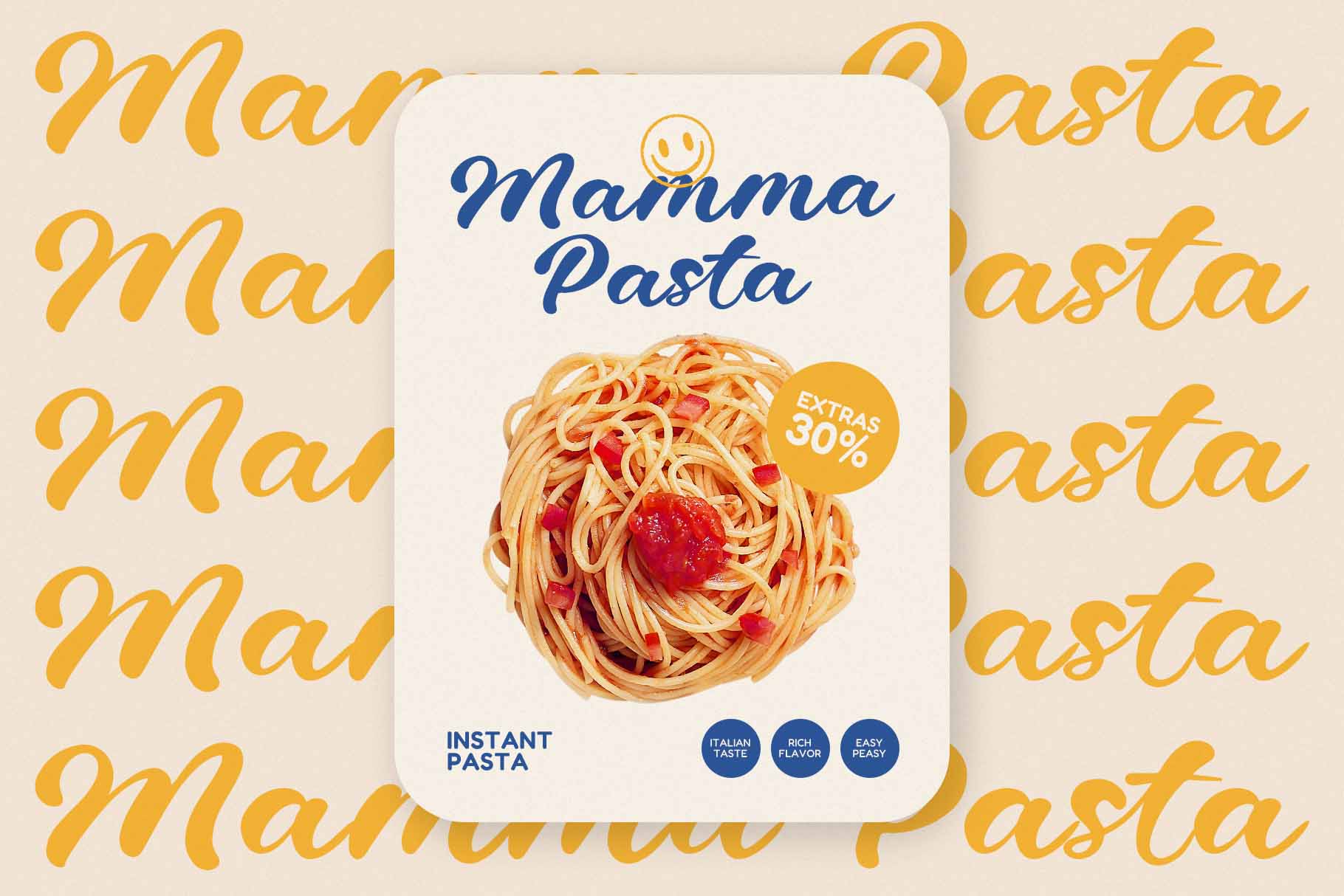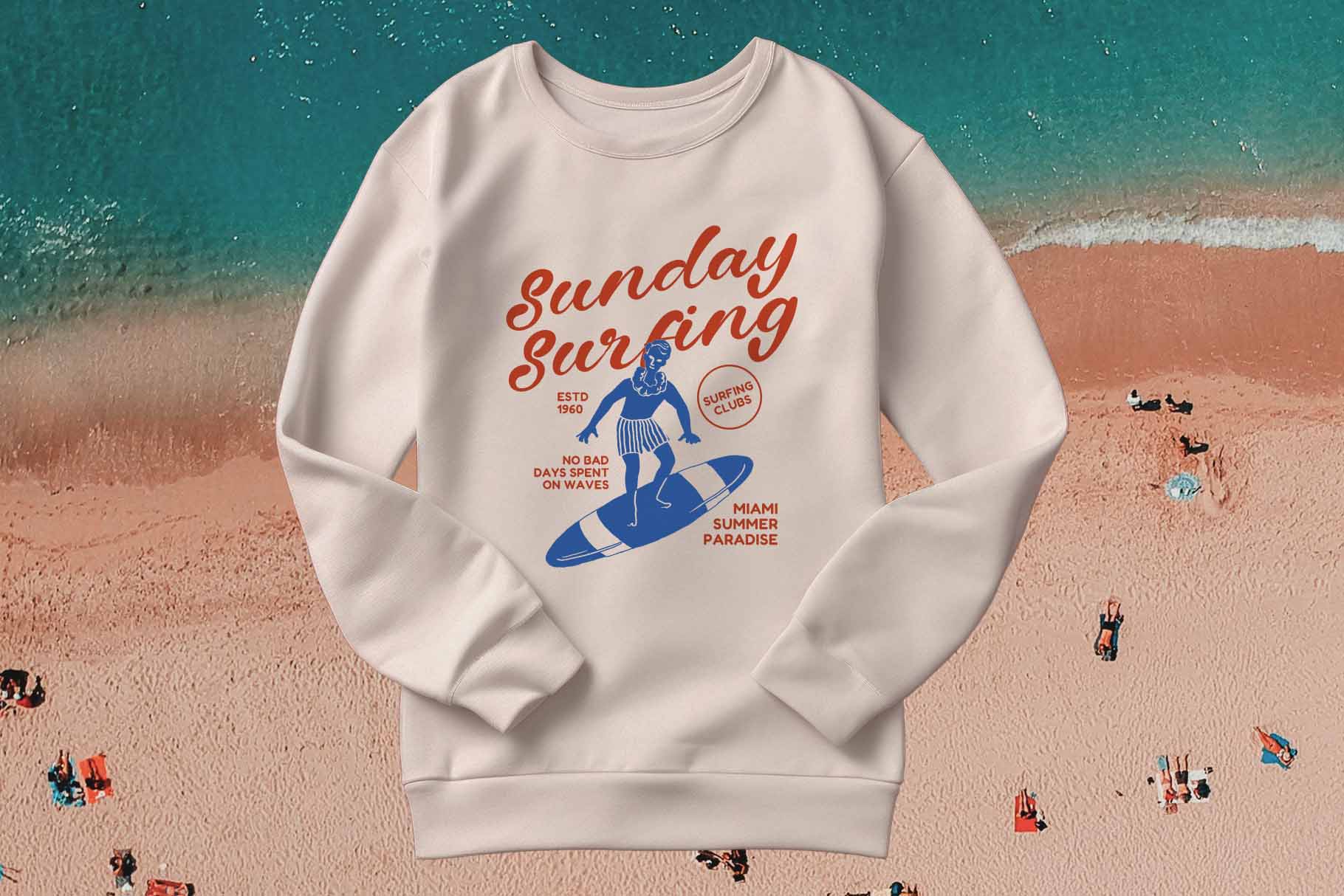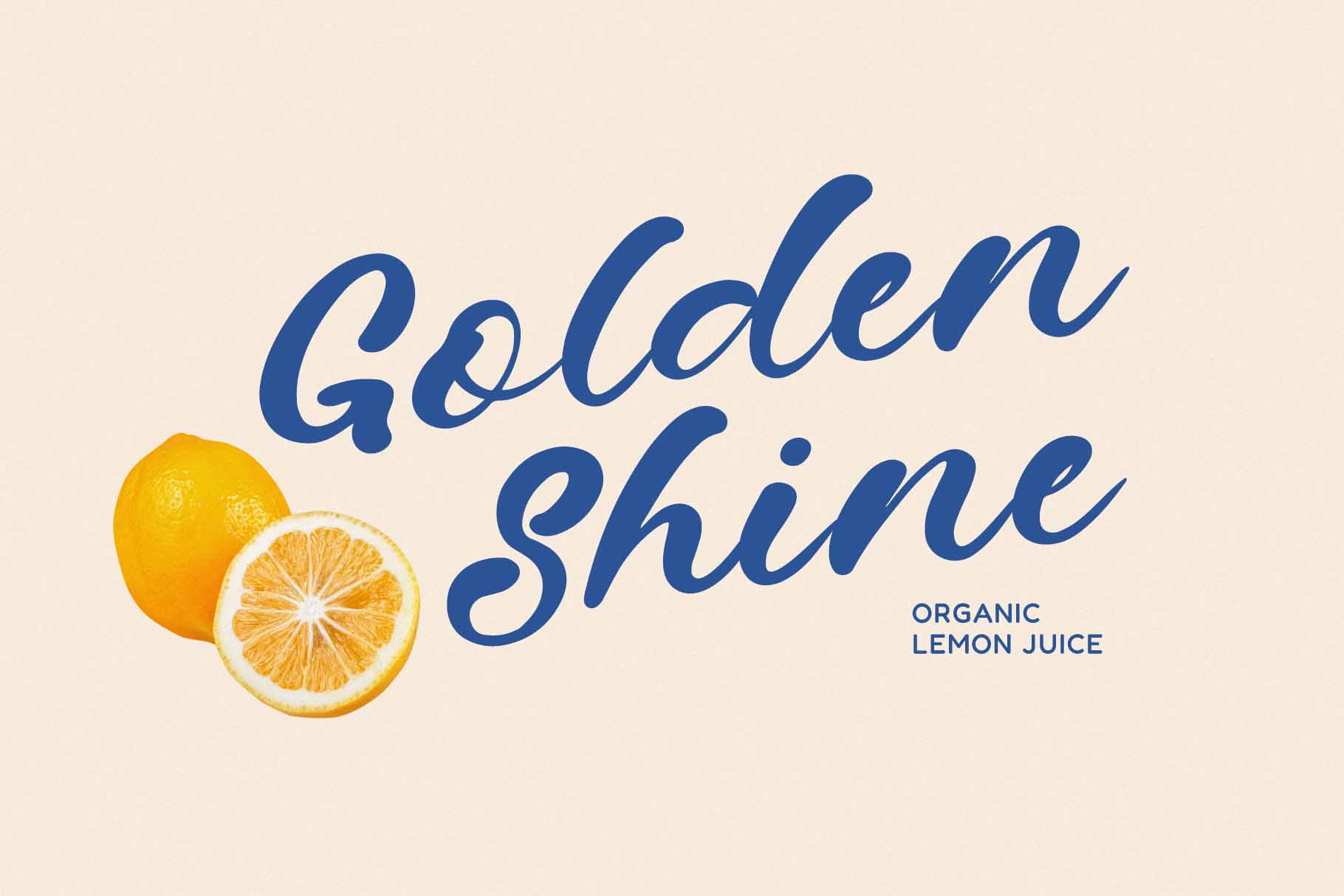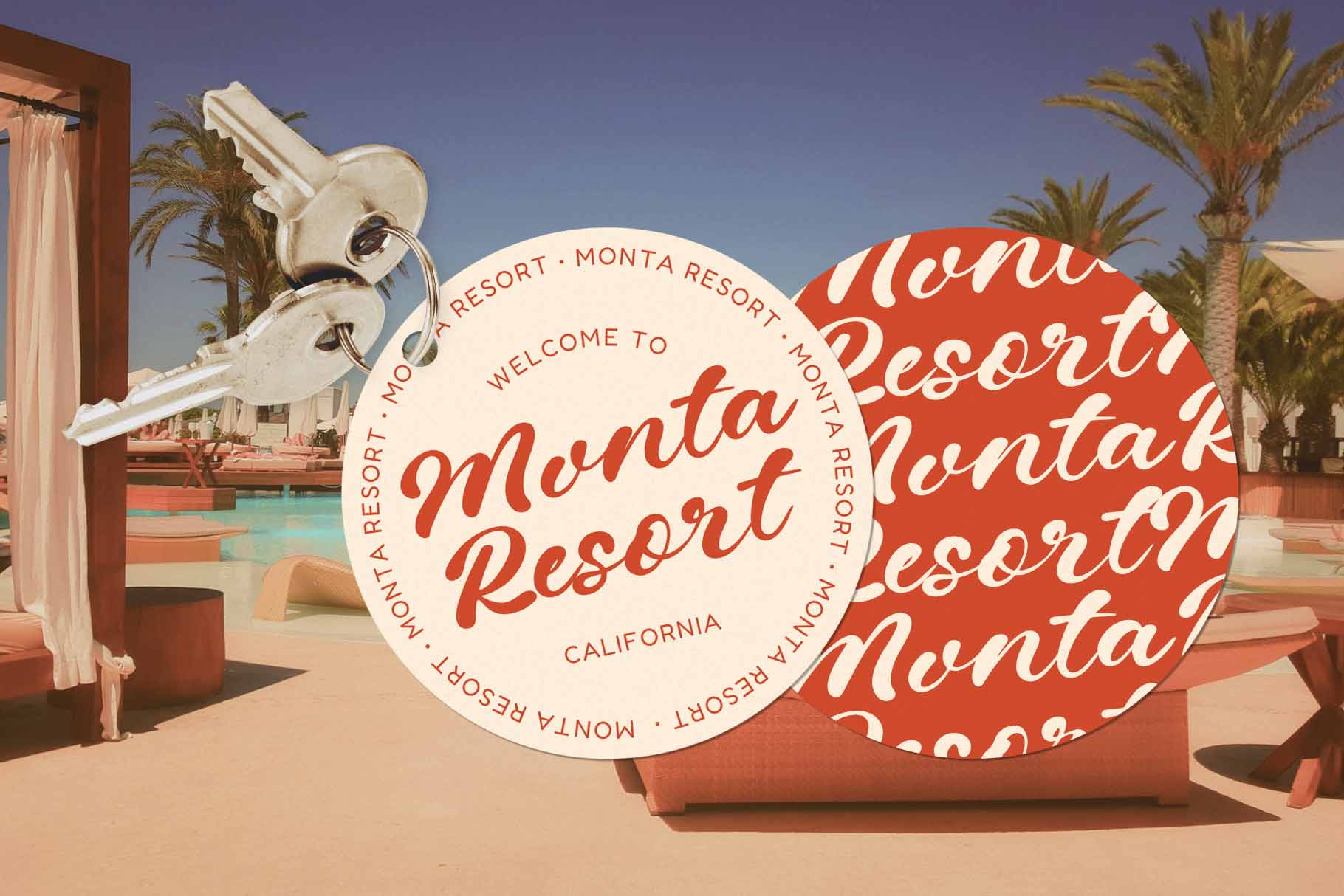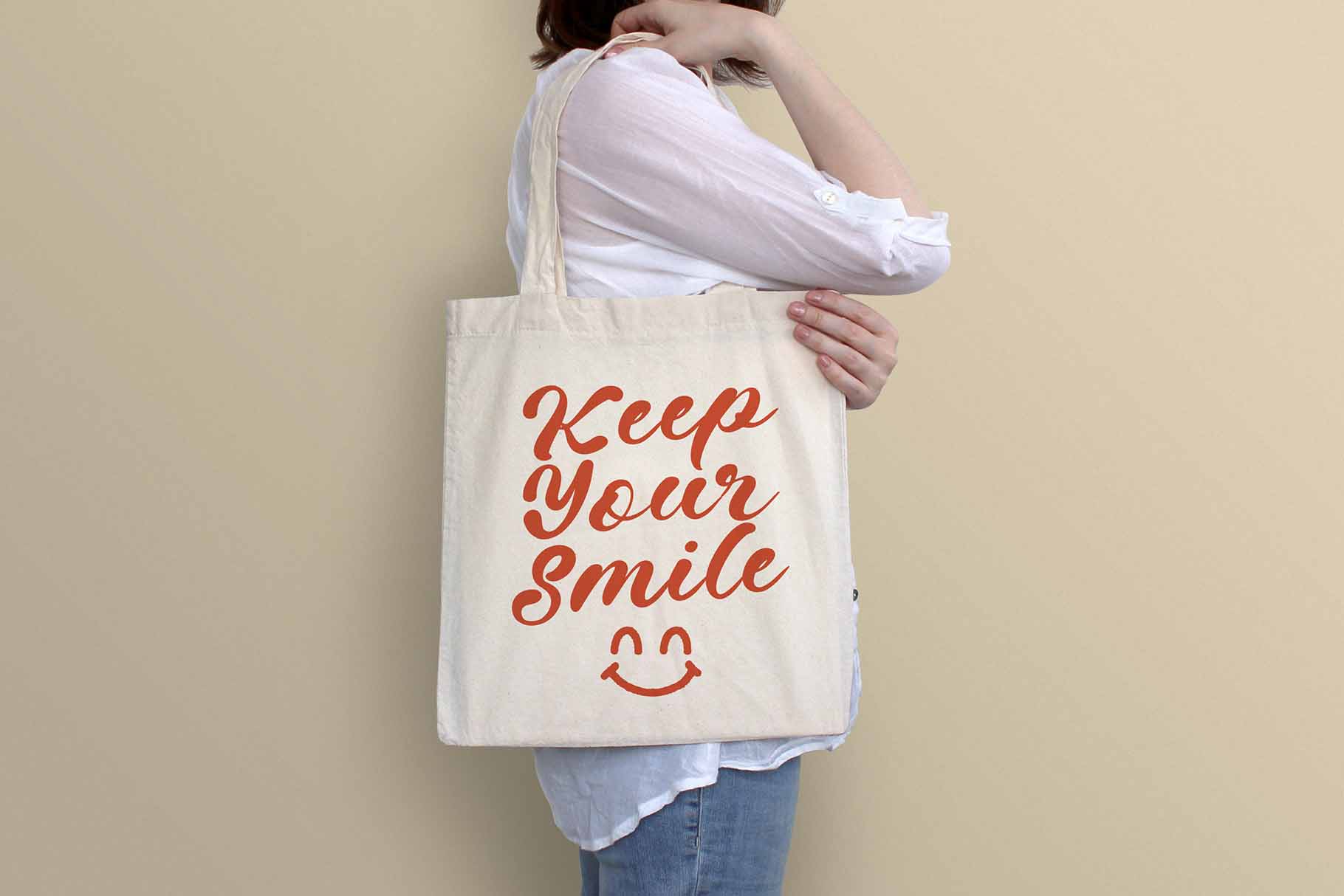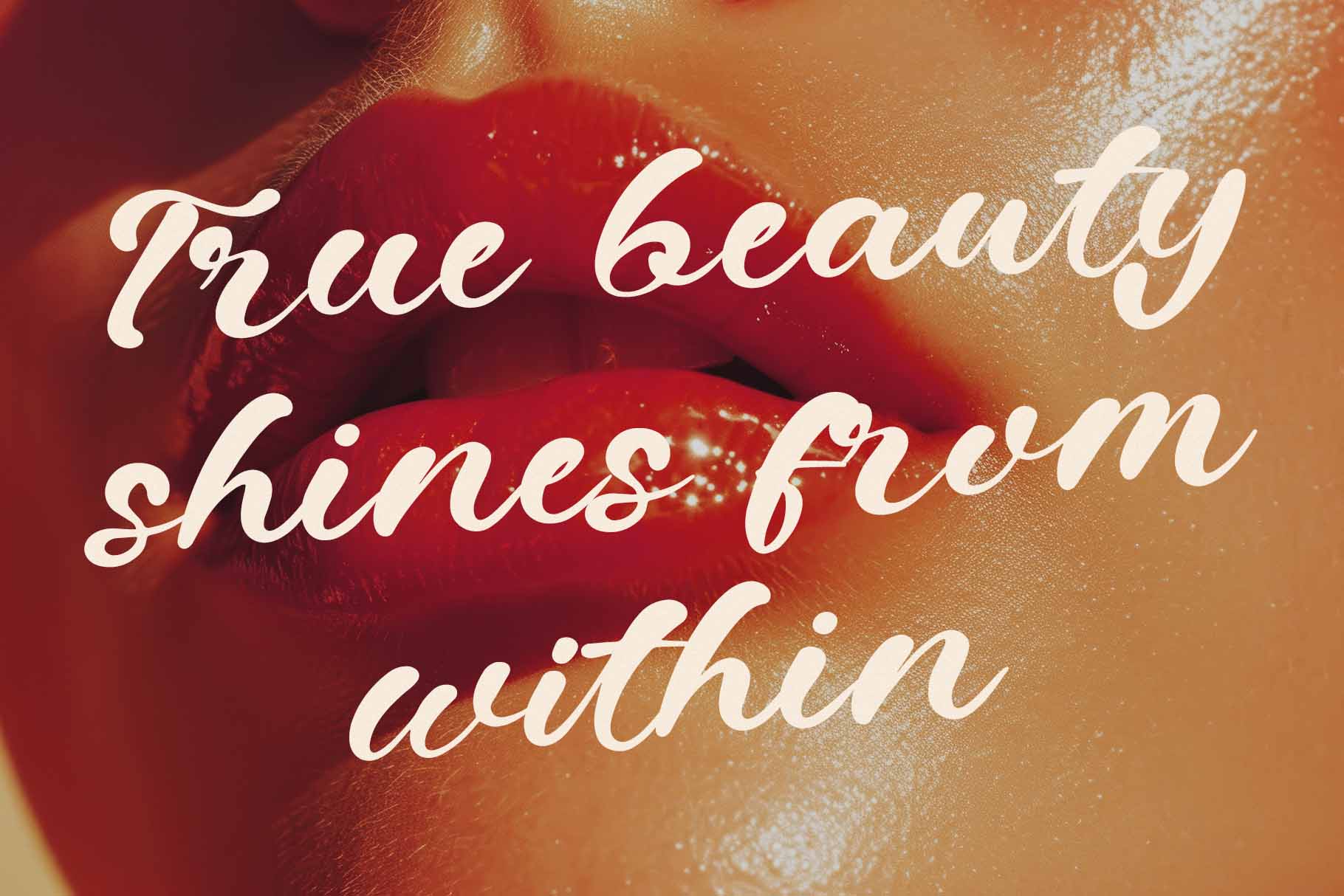
Gulley – Bold Script Font
About Gulley - Bold Script Font
Gulley is a bold script font that exudes a relaxed and stylish vibe, perfect for tropical or vintage-themed design projects. With smooth curves and bold characters, this font is ideal for logos, posters, packaging, or branding designs that need a touch of warmth and personality. Gulley beautifully blends modern and retro aesthetics, offering versatility for a wide range of creative applications.